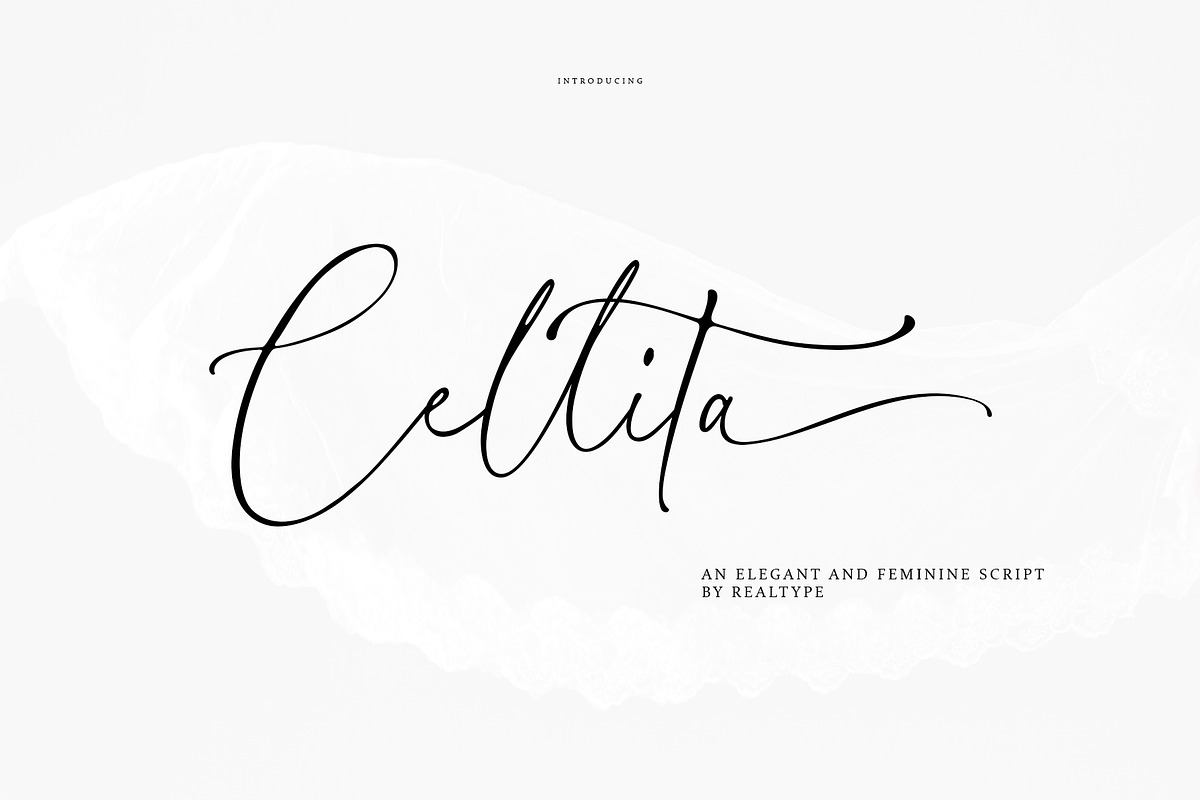
Introducing Cellita Script Font Free Download, a sophisticated and modern handwritten typeface that exudes elegance and class. Designed with subtle, organic curves, this font brings a fresh and contemporary feel to your projects. Ideal for branding, greeting cards, wedding invitations, banners, and more, Cellita Script adds a charismatic and unique touch to any design. Download Cellita Script Font Free Download to explore its features in personal projects. For commercial use, please ensure you purchase the appropriate license. Enhance your designs with the refined beauty of Cellita Script Font Free Download